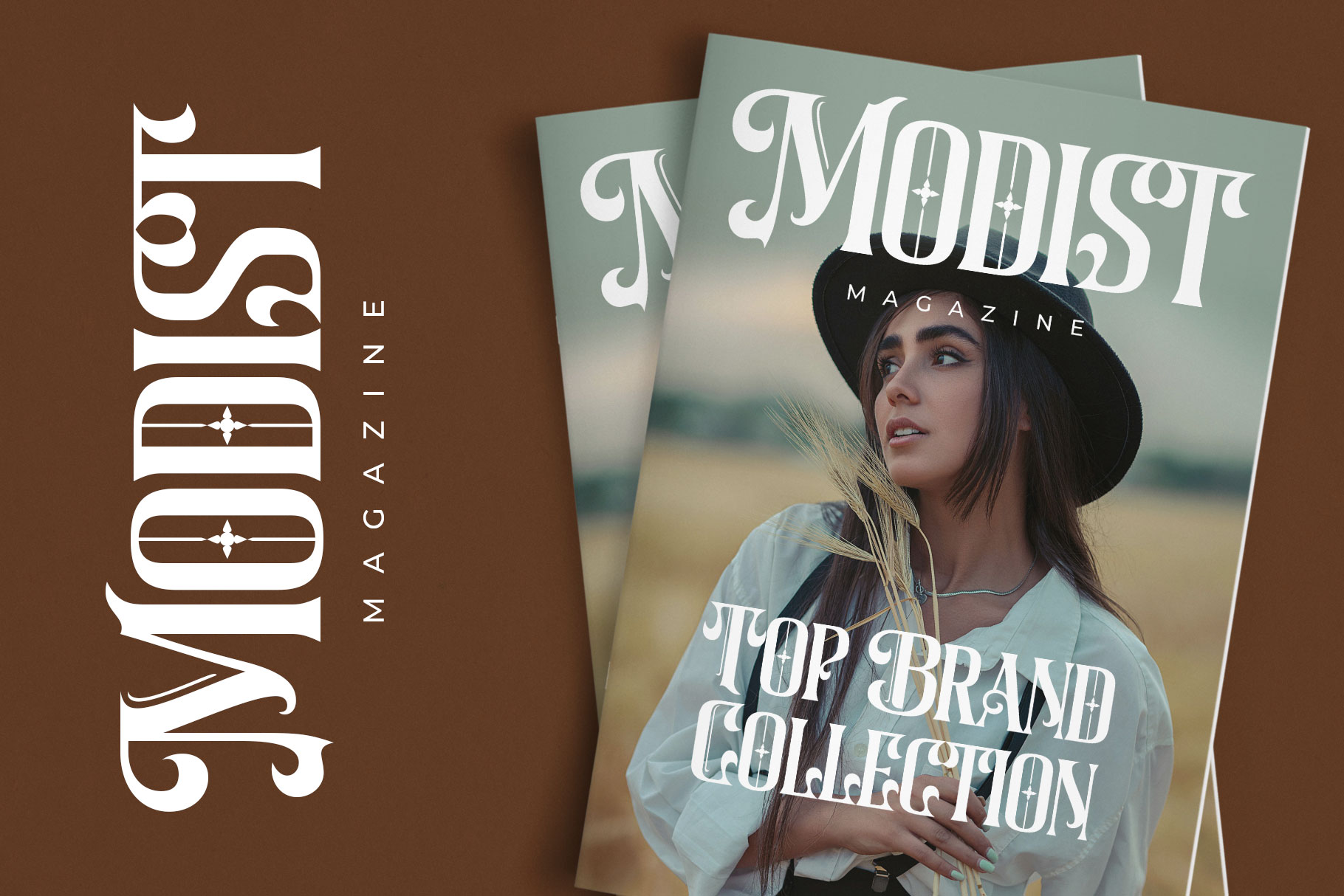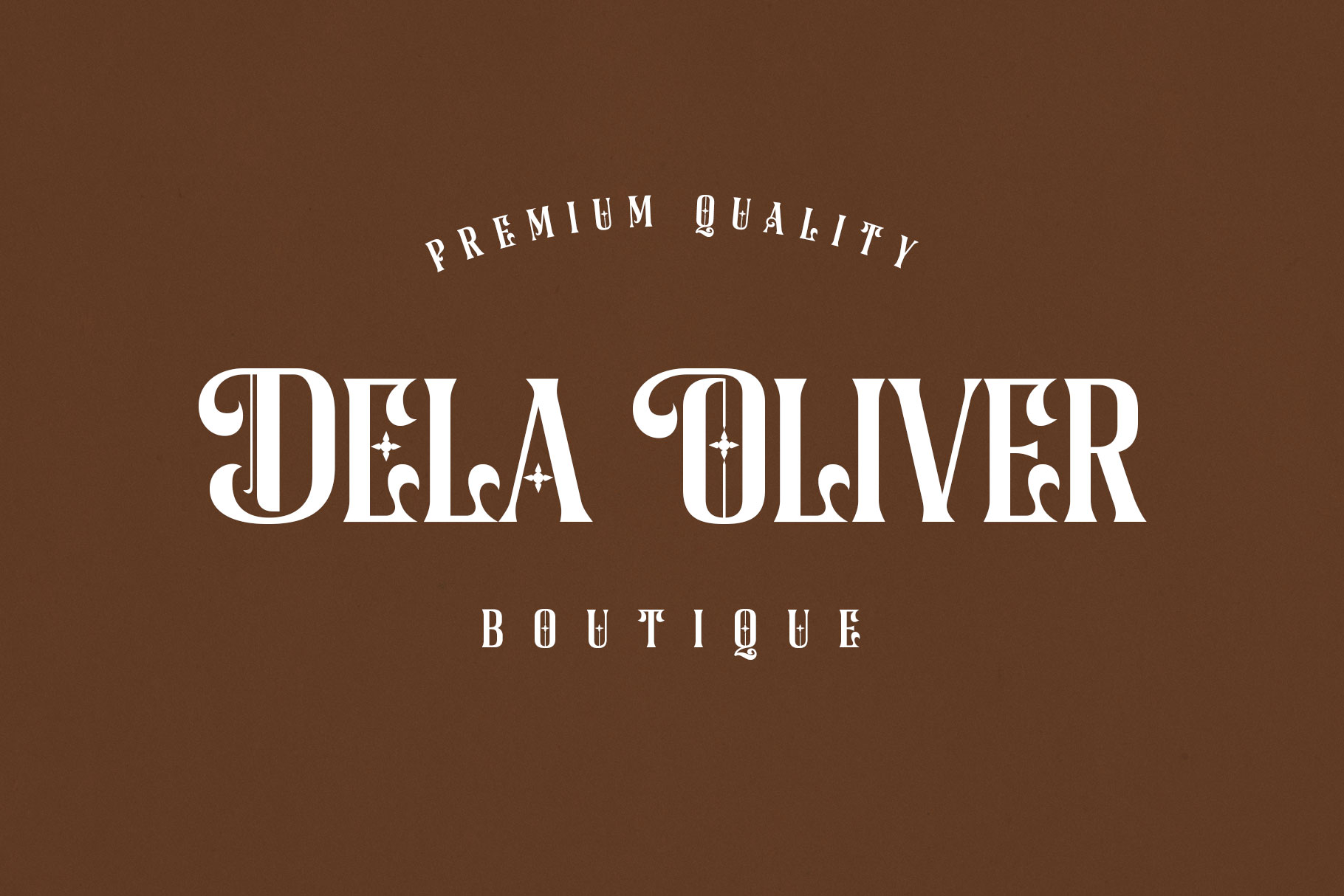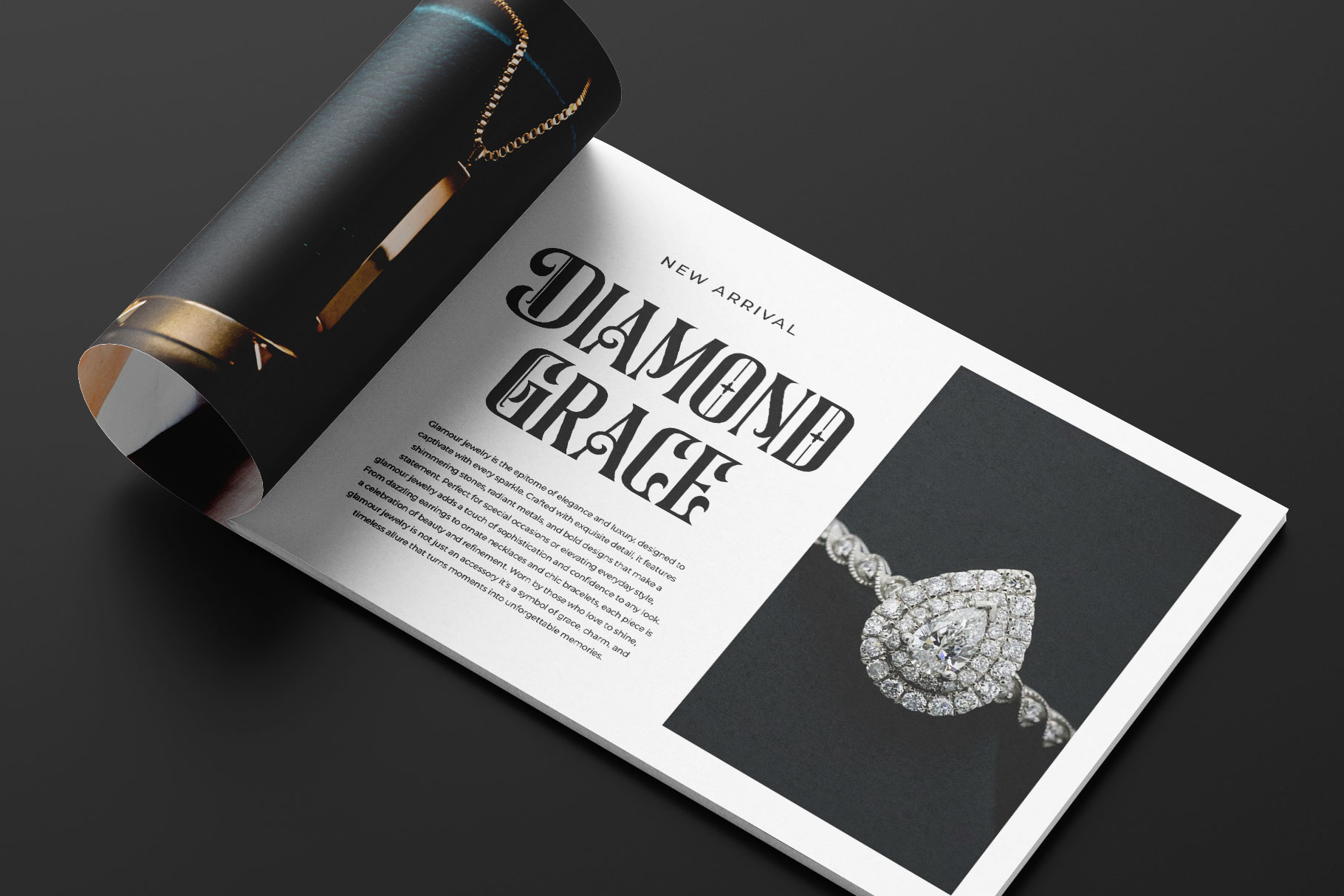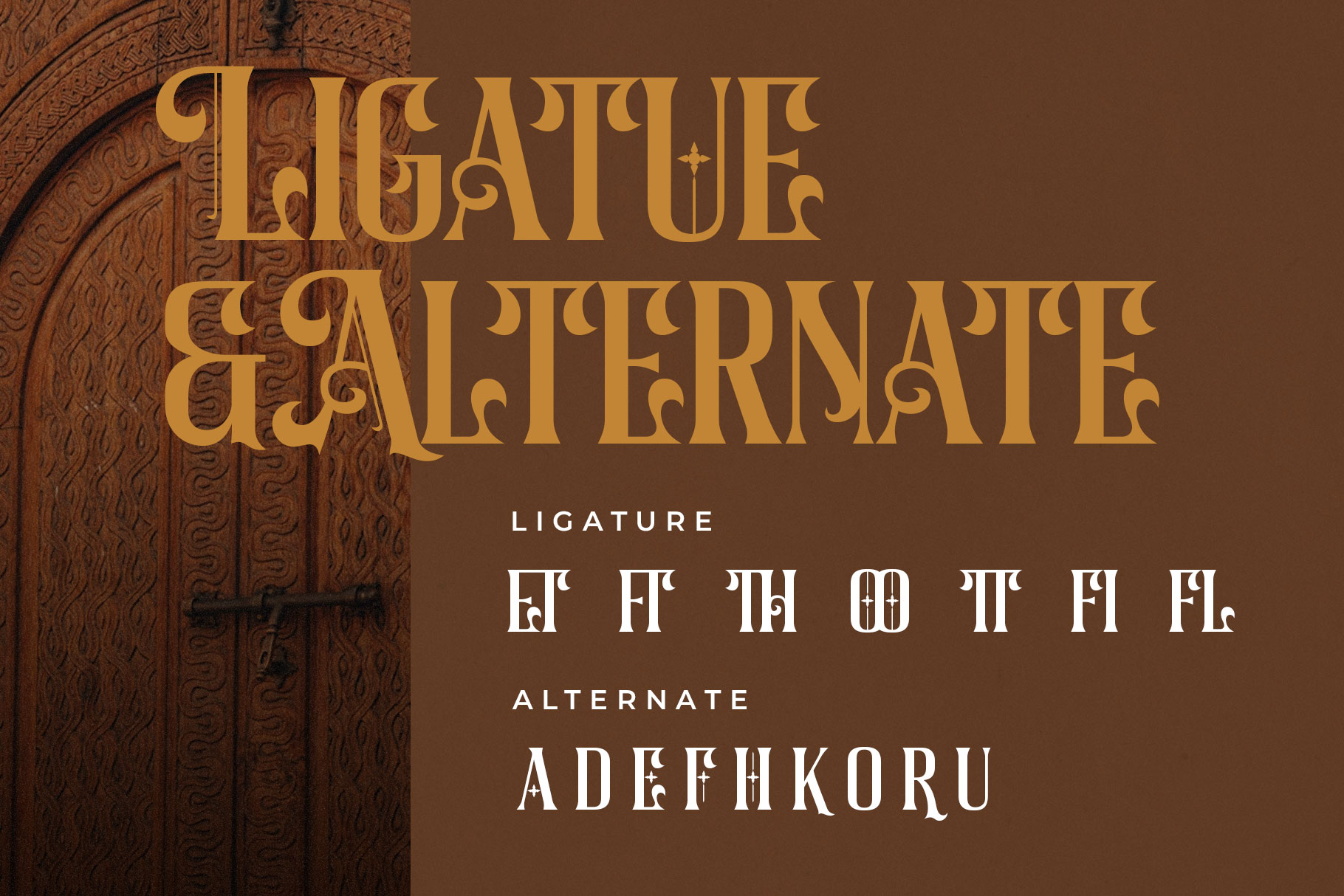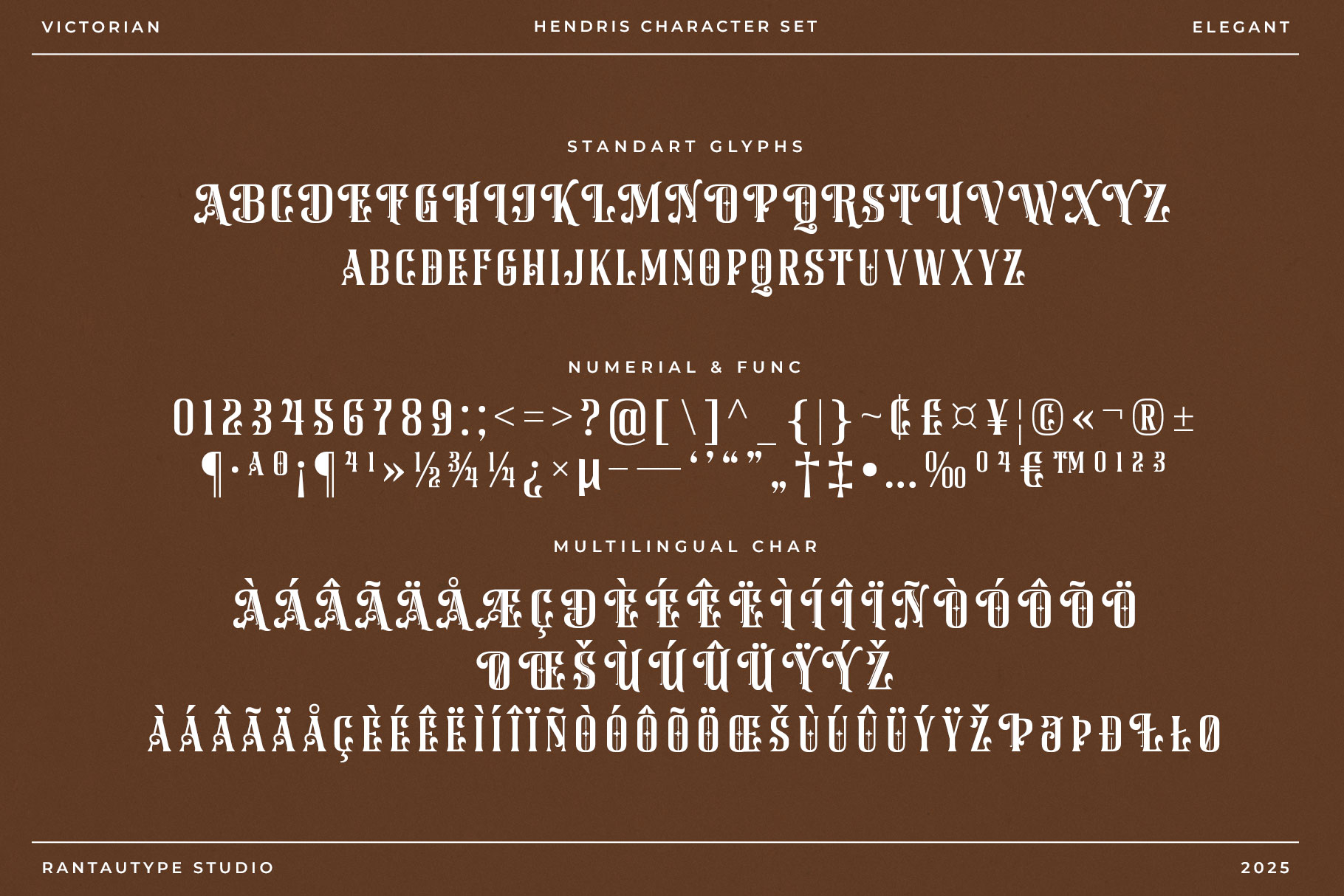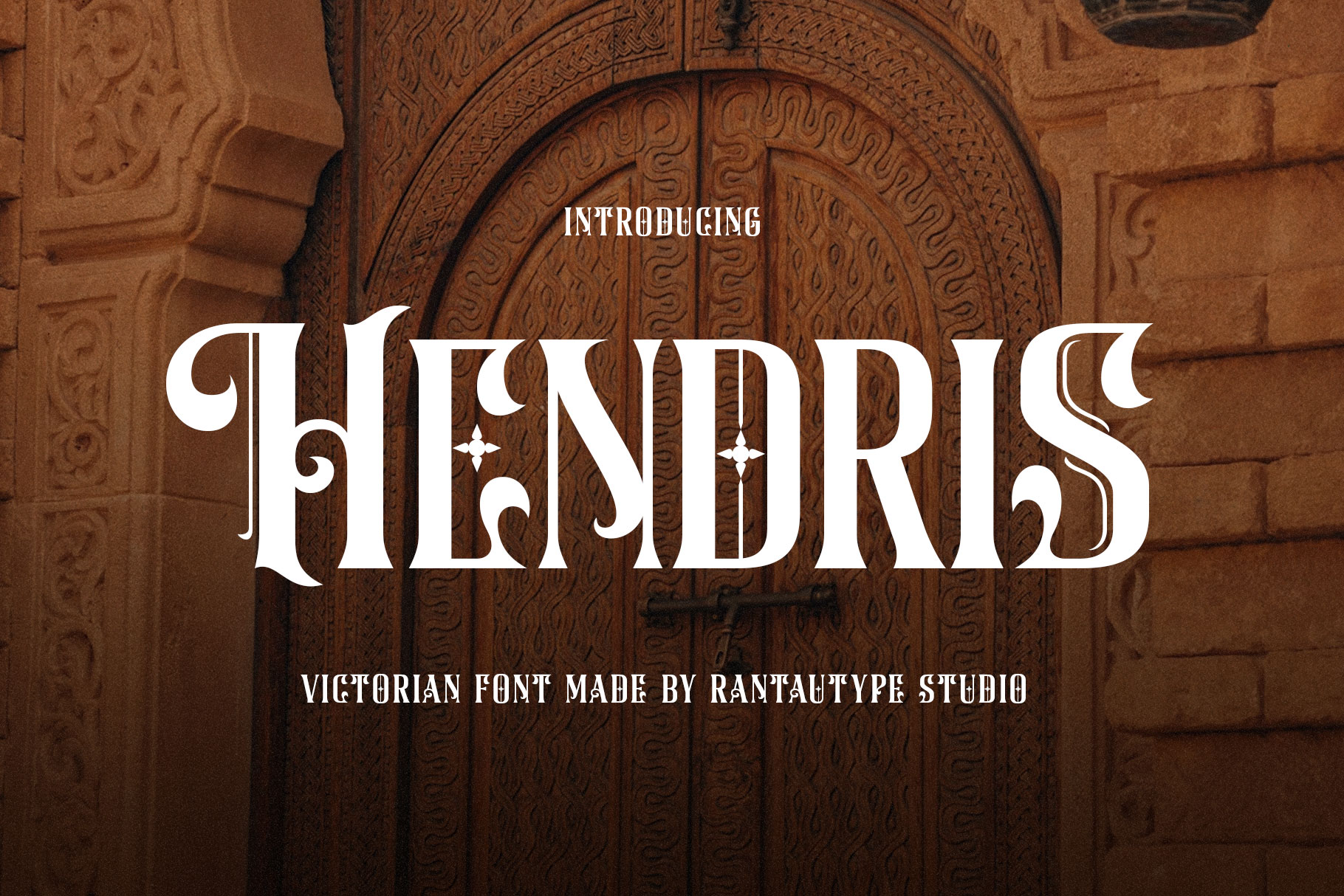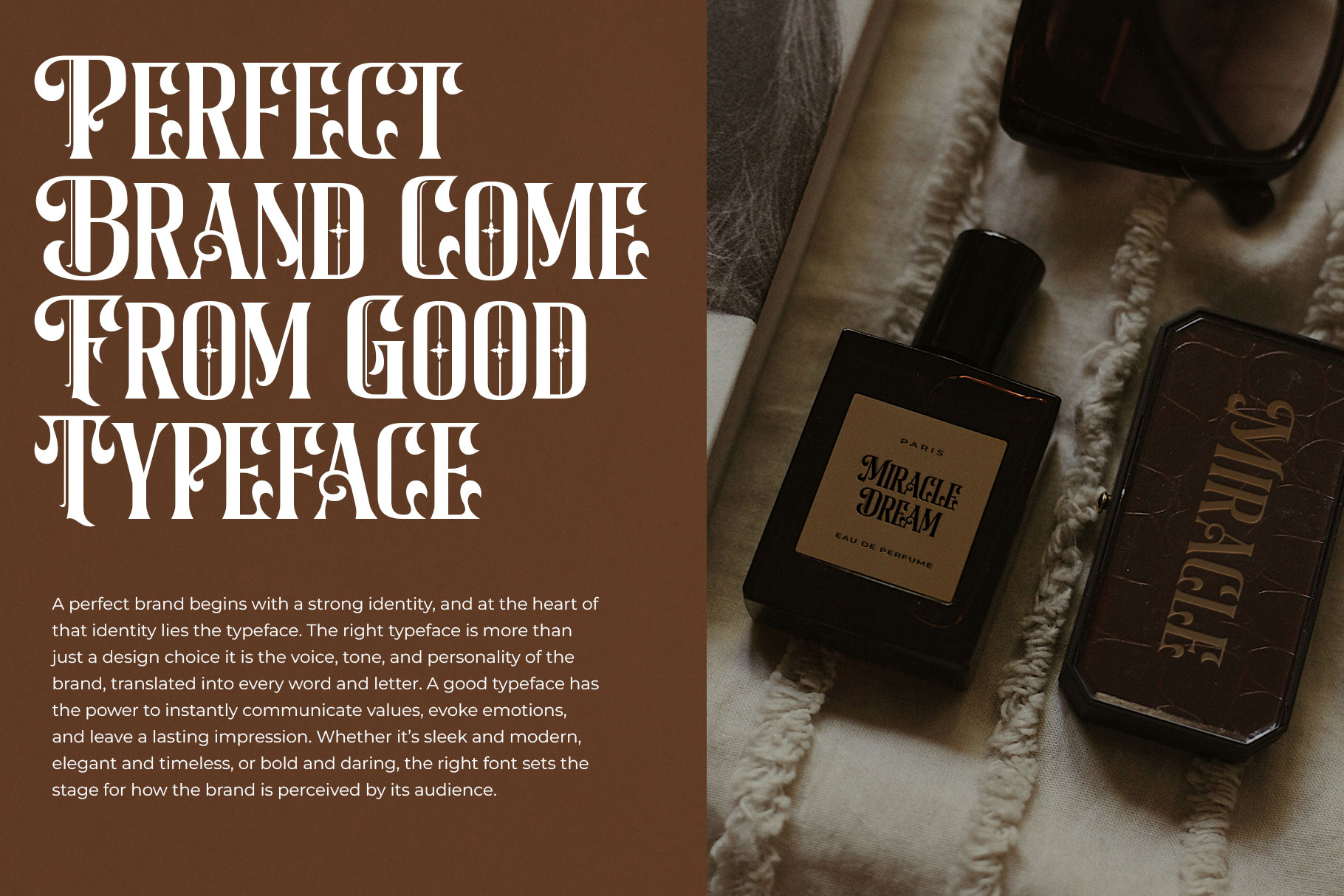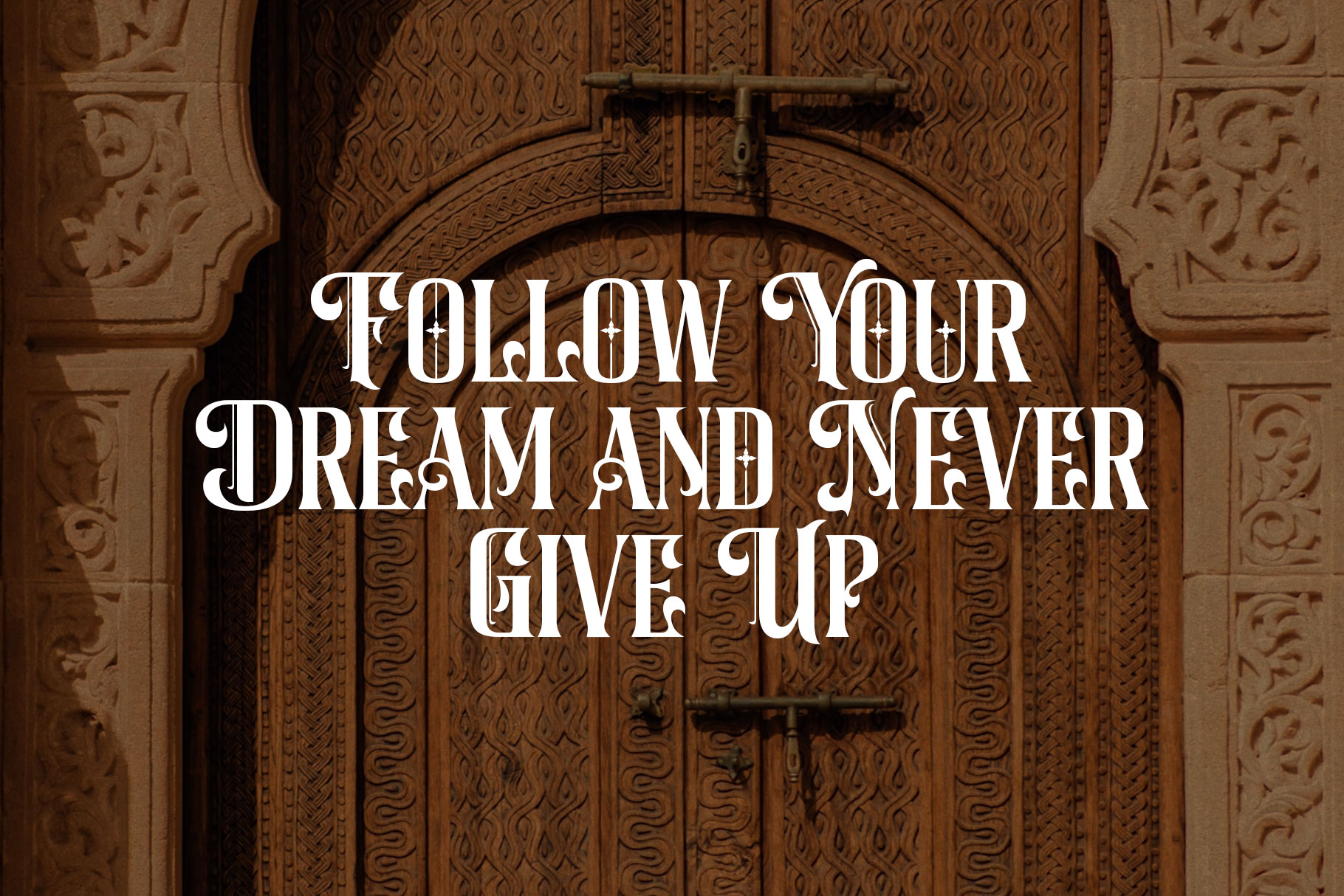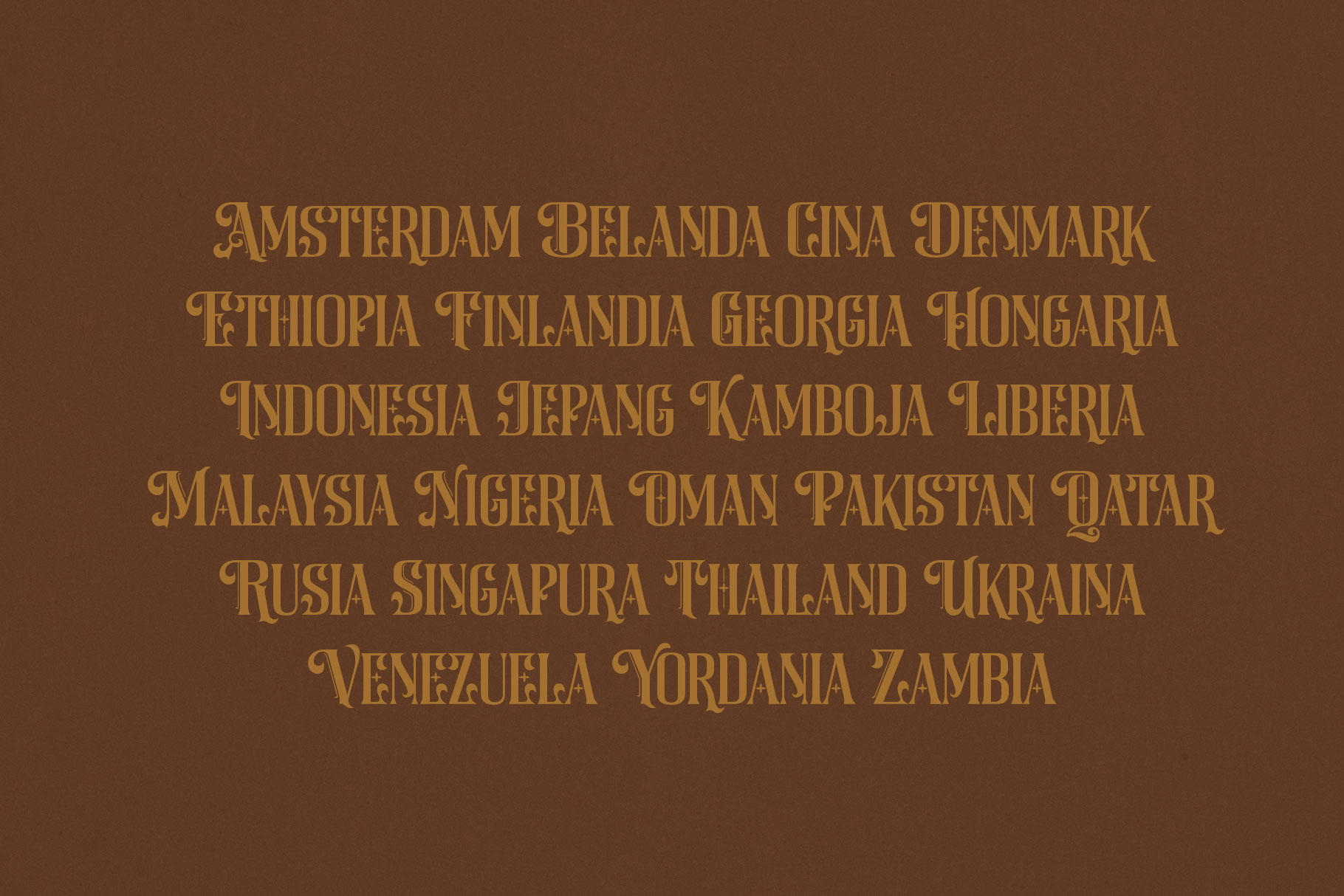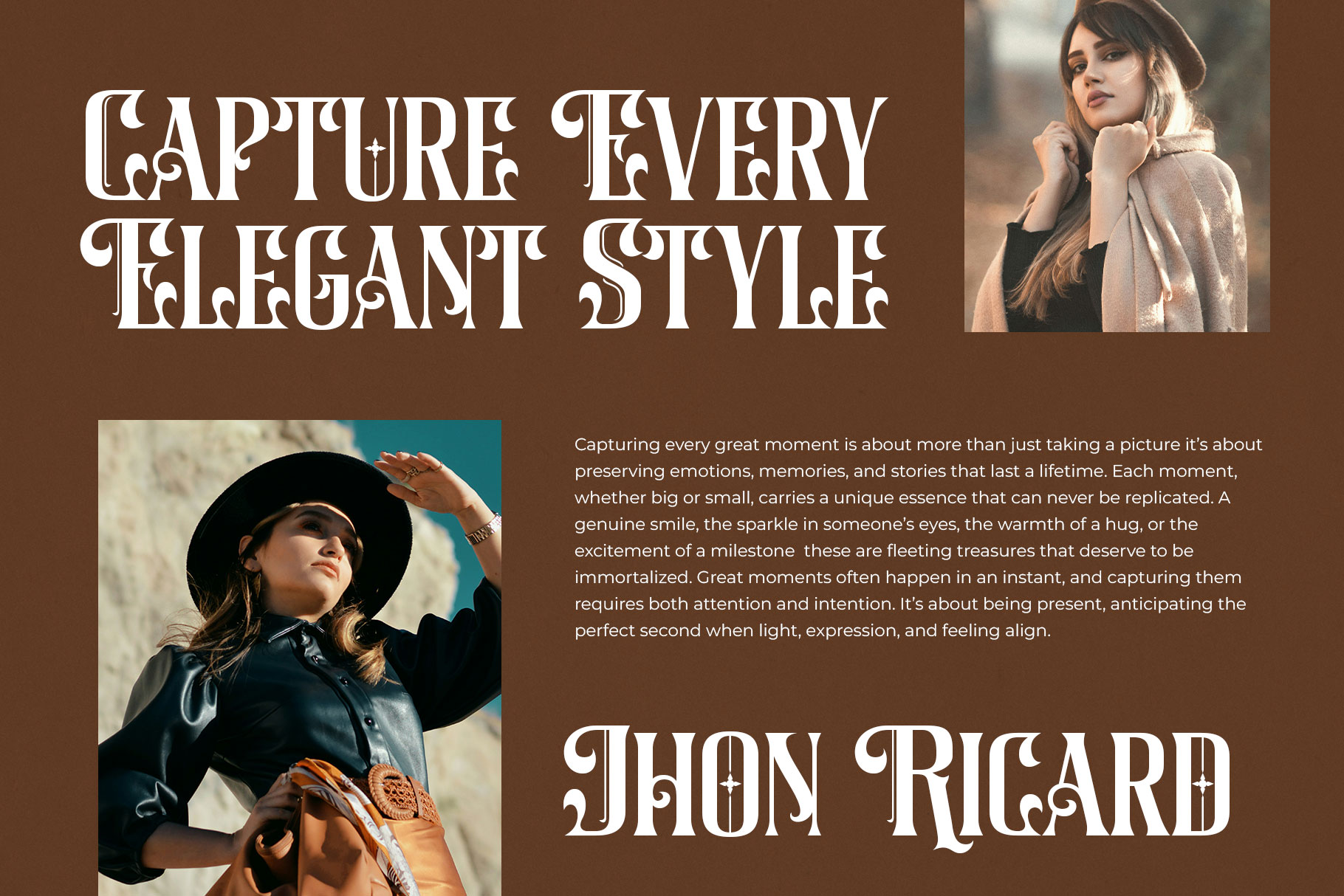
Hendris Victorian Font
Hendris is victorian font inspire by ornate aesthetics of the Victorian era. Hendris come with elegant shape to make your design stand out. Hendris is a perfectly choice for any creative endeavor, creating, modern, lifestyle design such as logotype, title, cover, branding, invitations, wedding designs, display and magazine, social media posts, advertisements, printed quotes, product packaging, corporate brand, product designs, labels, photography, watermarks, special events and any other project with victorian touch.